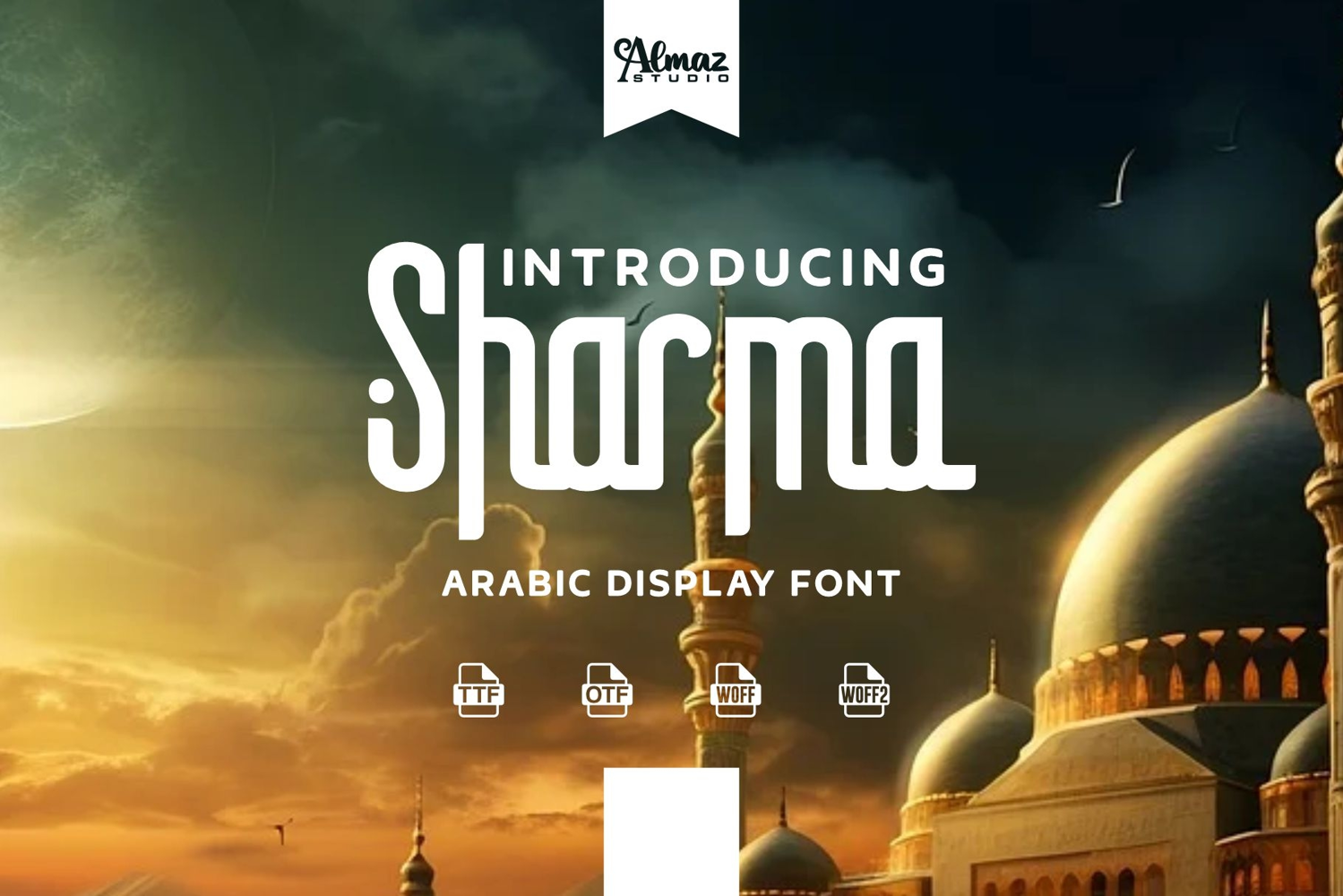
Sharma
Sharma is an elegant Arabic display font that blends modern design with traditional Middle Eastern flair. Featuring tall, graceful letterforms with smooth curves and unique ornamental touches, Sharma captures the beauty and sophistication of Arabic-inspired typography while remaining highly legible.
Perfect for branding, packaging, posters, invitations, religious or cultural event promotions, and any project that seeks an exotic yet contemporary look, Sharma adds an air of refinement and authenticity.
Sharma ensures sharp, consistent results on both digital and print media. Elevate your designs with the timeless elegance of Sharma.